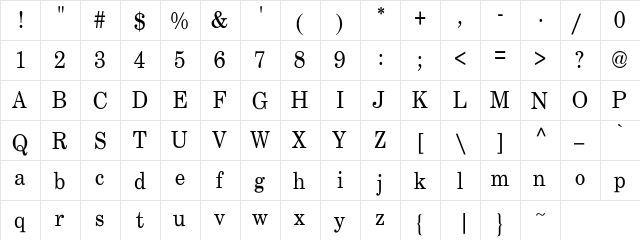
Roosevelt 7 Regular Font Preview
Roosevelt 7 Regular
Design Context for Roosevelt 7 Typeface
Roosevelt 7 offers clean, dependable letterforms without strong stylistic allegiance, making it a practical choice for designers who need flexibility.